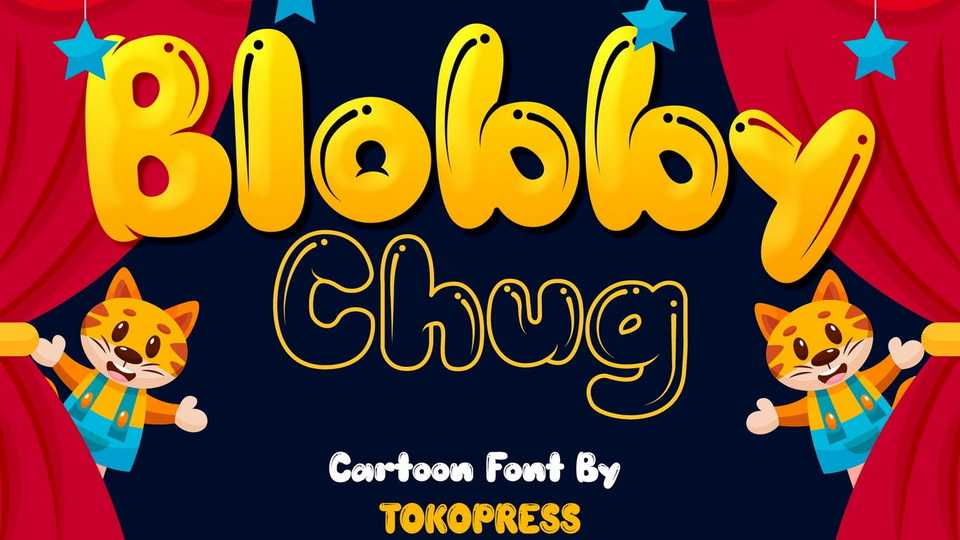
Download Blobby Chug font, a kids blob typeface. The bold and balloon playful sans serif shape of Blobby Chug will bring a lot of joy to kids hearts.